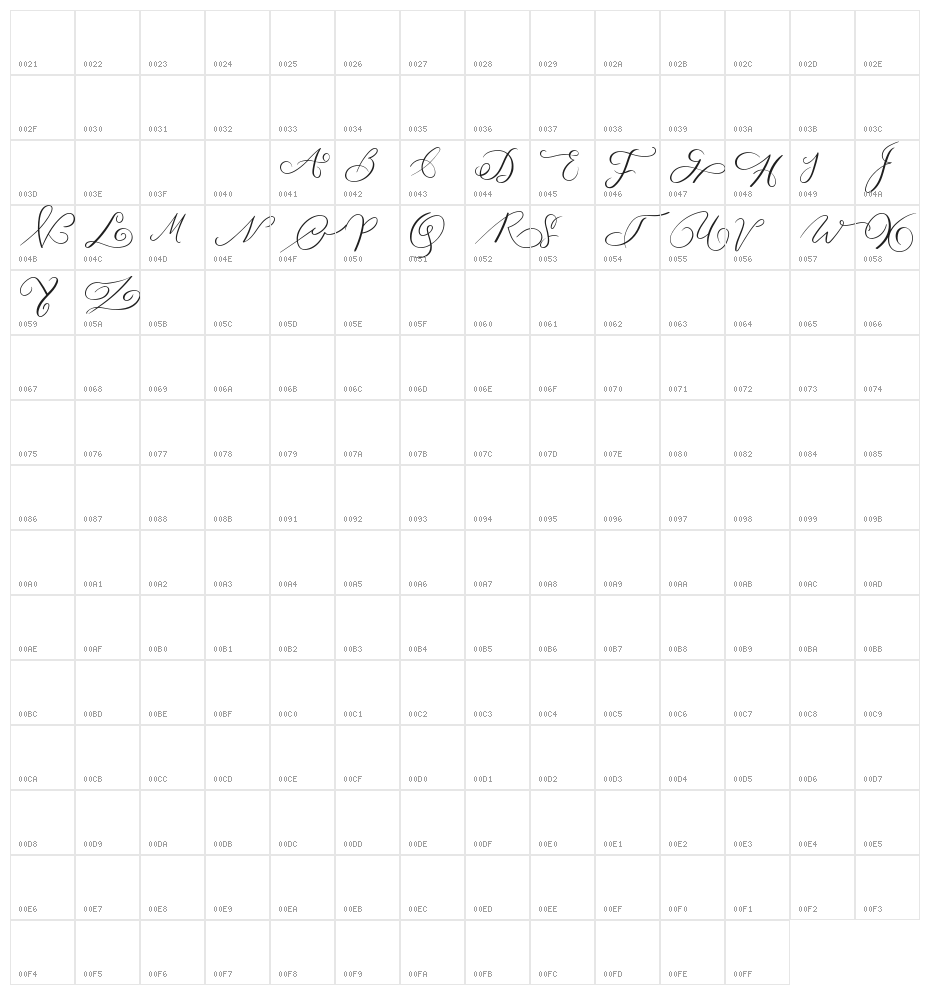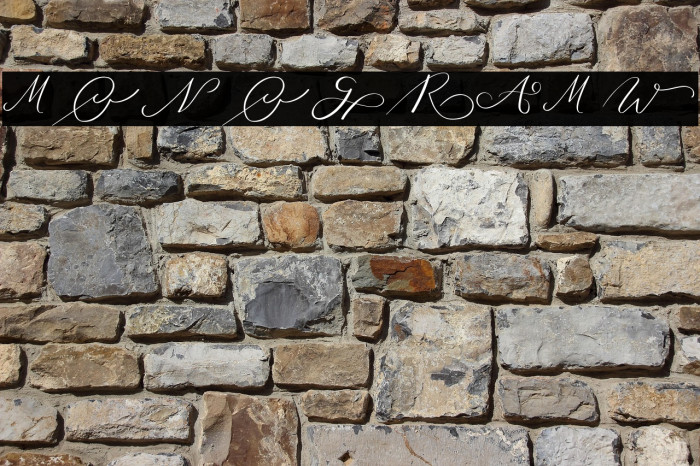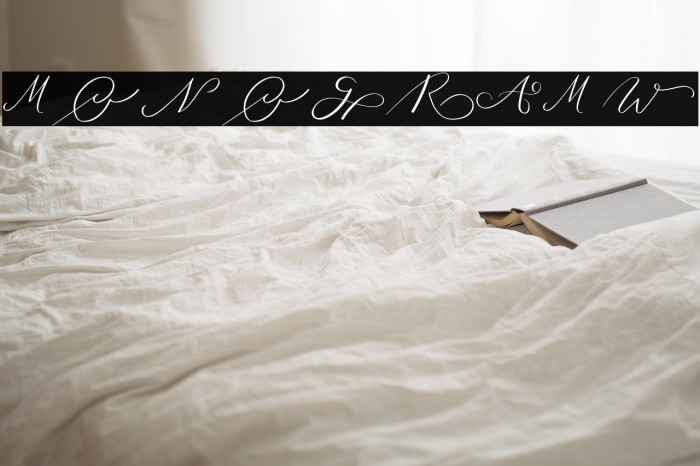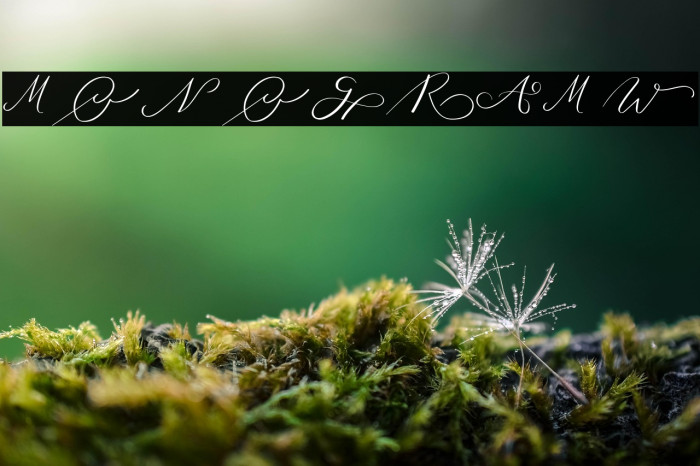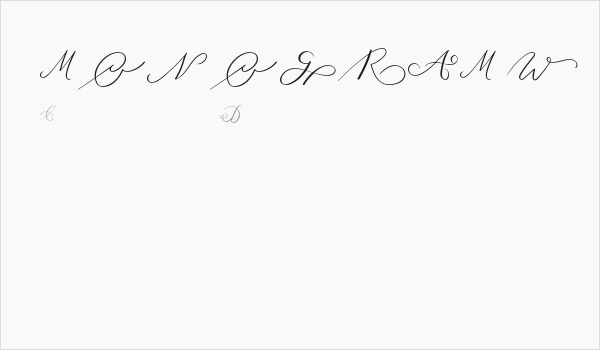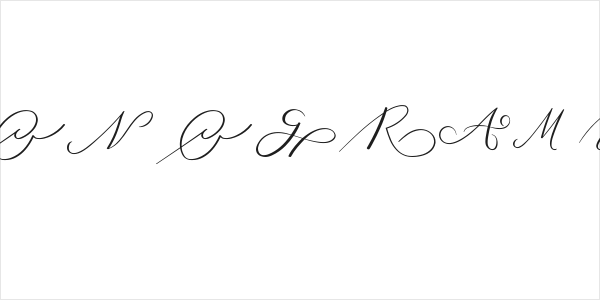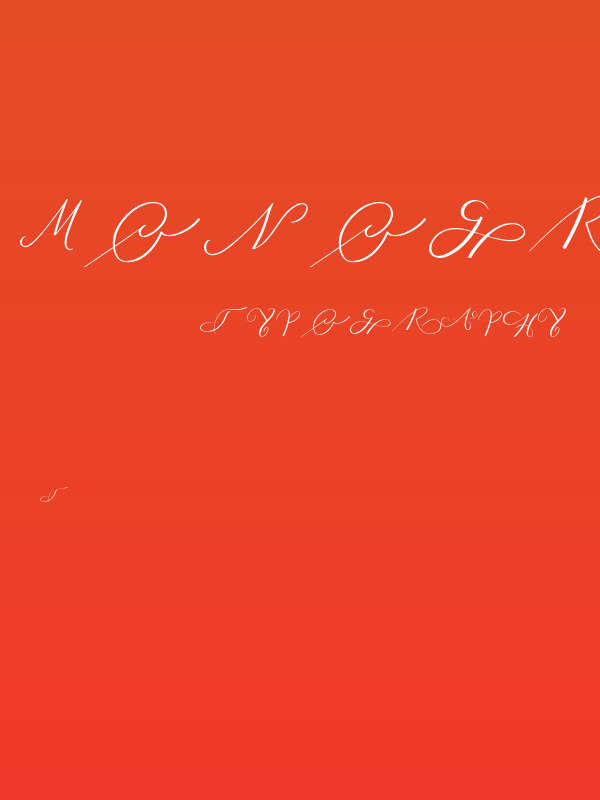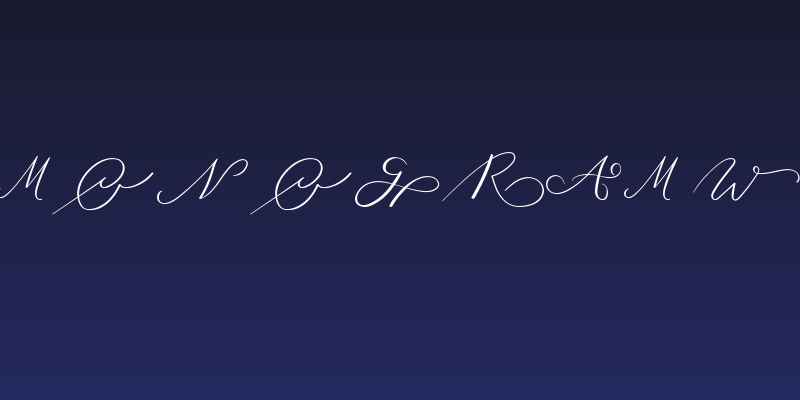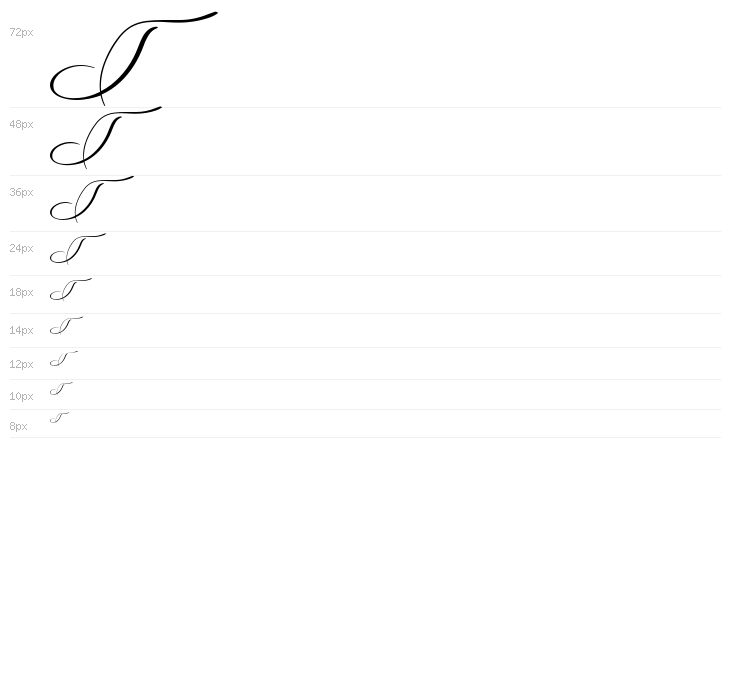
MONOGRAM W Font
MONOGRAM W Description
This elegant script font features intricate and flowing letterforms, characterized by its ornate and decorative style. Each character is designed with elaborate swirls and loops, giving it a sophisticated and luxurious appearance. The uppercase letters are particularly elaborate, with flourishes that extend beyond the baseline and cap height, creating a sense of movement and grace. This font is ideal for formal invitations, monograms, and branding that requires a touch of elegance and refinement. Its artistic design makes it suitable for projects that aim to convey a sense of tradition and high-end quality.
| Use Case | Logos, Invitations, Monograms |
| Proposed Projects | Ideal for wedding invitations, luxury branding, monograms, and formal event materials. |